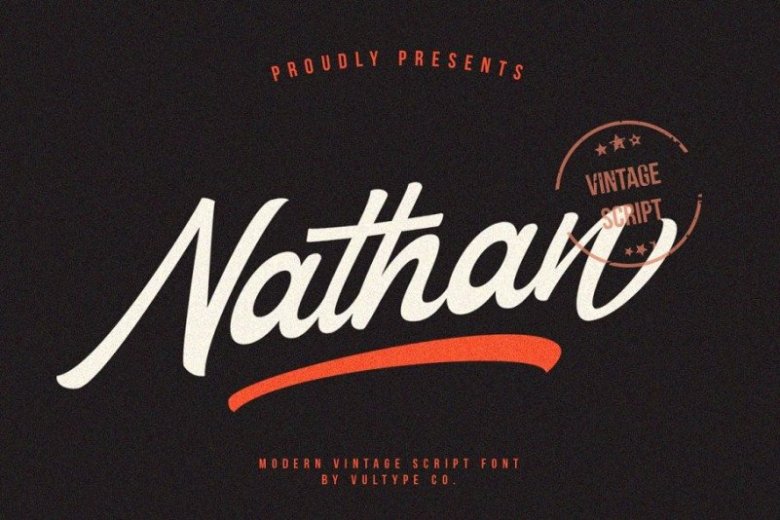
Nathan Vintage Script Font
Nathan Vintage Script was very inspired from modern vintage and retro style
All characters have an imperfect shape that gives a natural look in design. It easily cooperating together and perfect for creating the traditional style logos, labels, package design, lettering for t-shirts and much others.
Multilingual support It also includes a clean version without texture. OpenType features (ligatures and alternates) helps to make your lettering more interesting. Also there is swashes alternate
This font has a vintage feel with styles stamp on each letter. great for Logotype, Branding Design, Vintage Logo Design, Digital Lettering Arts, Retro,brush font, script font, bold script, Vintage lettering, and any vintage design needs.